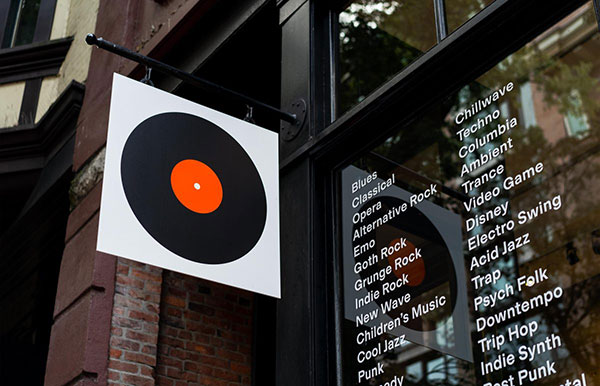
The eye-catching Vinyl Records logo and identity was designed by Canadian studio Tomorrow, for the Vancouver record store.
Such a simple mark. Bold, colourful, unmistakably vinyl.
“Our ambition was to help revitalize a historic neighbourhood with the mass appeal of music. Our strategic approach was to create a brand that was universal, like music. Be the art gallery, not the art.”